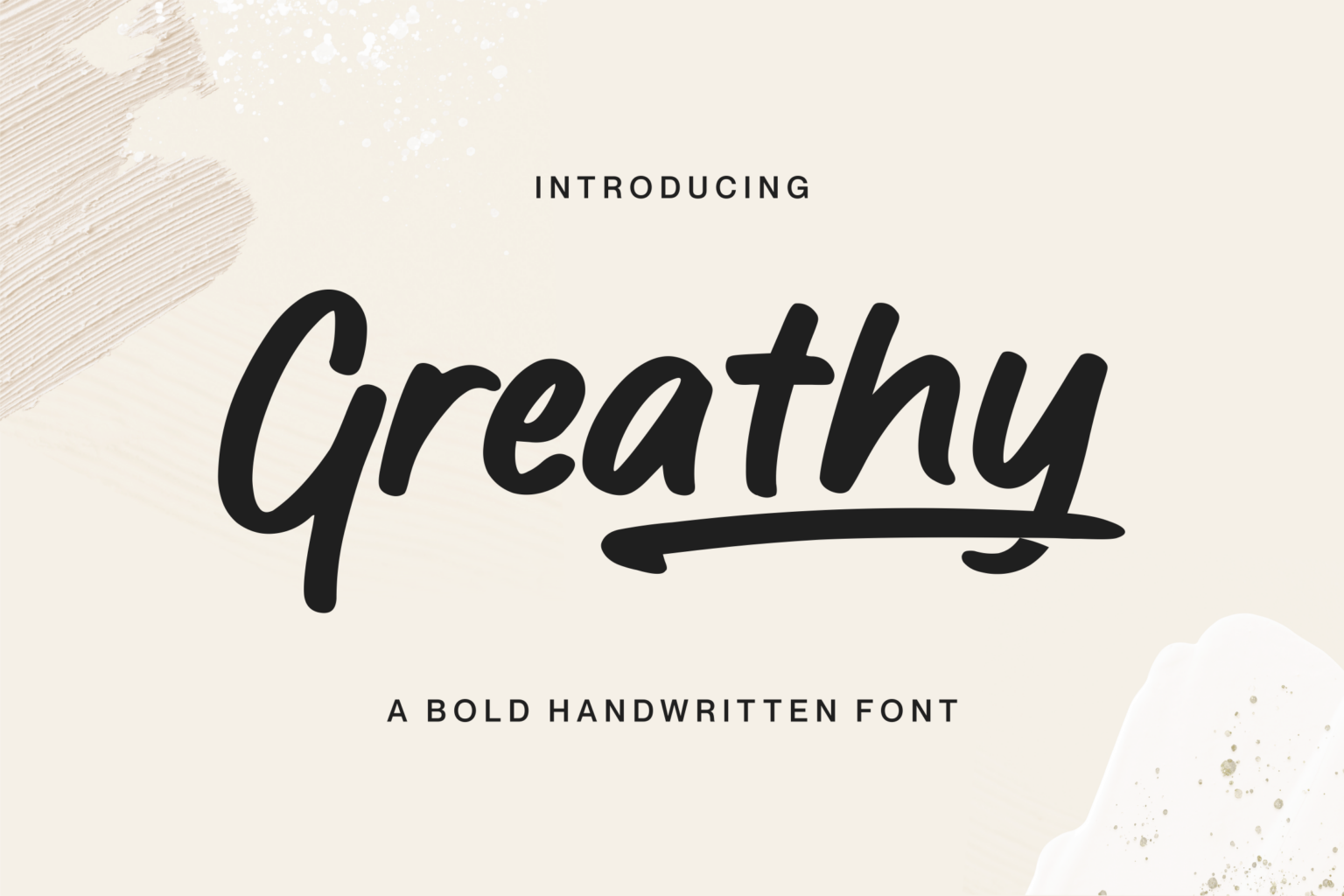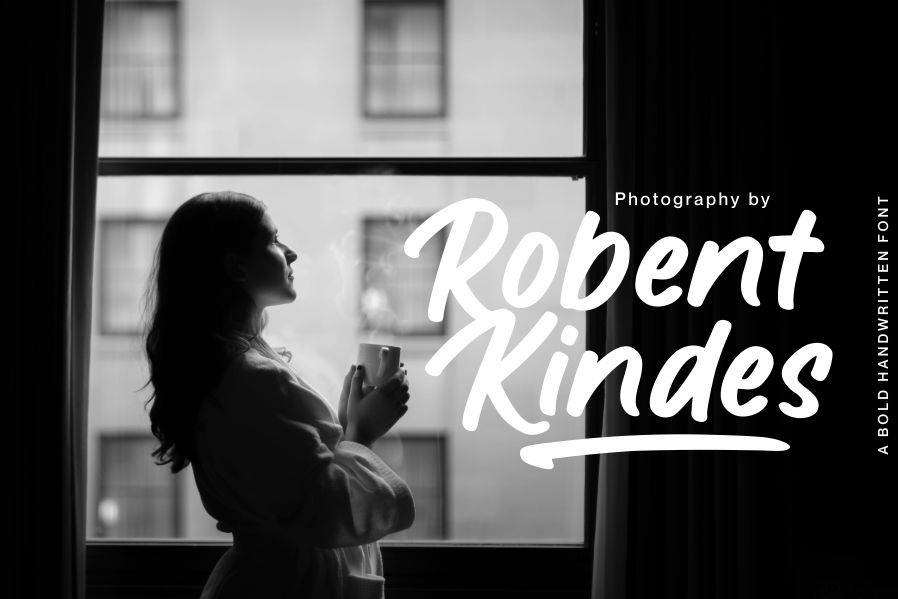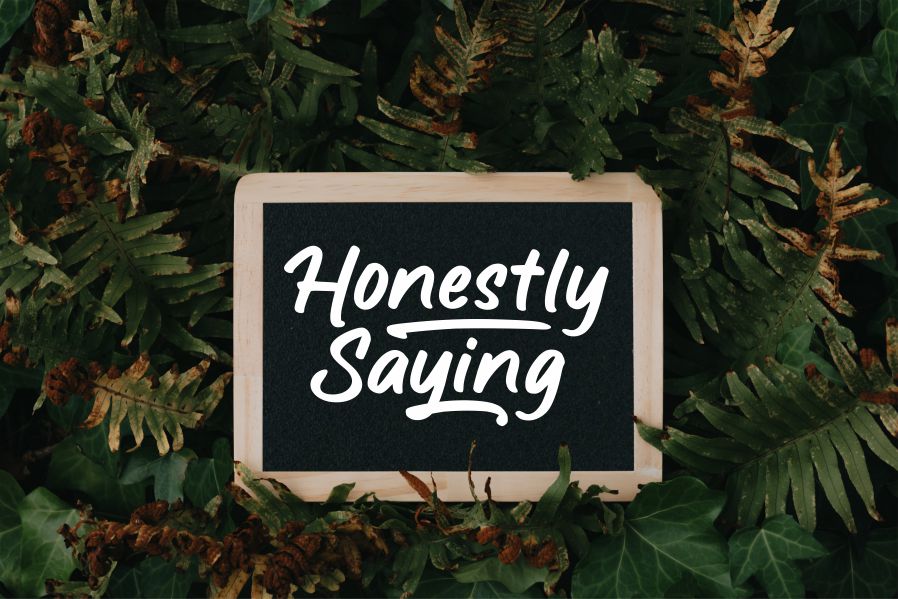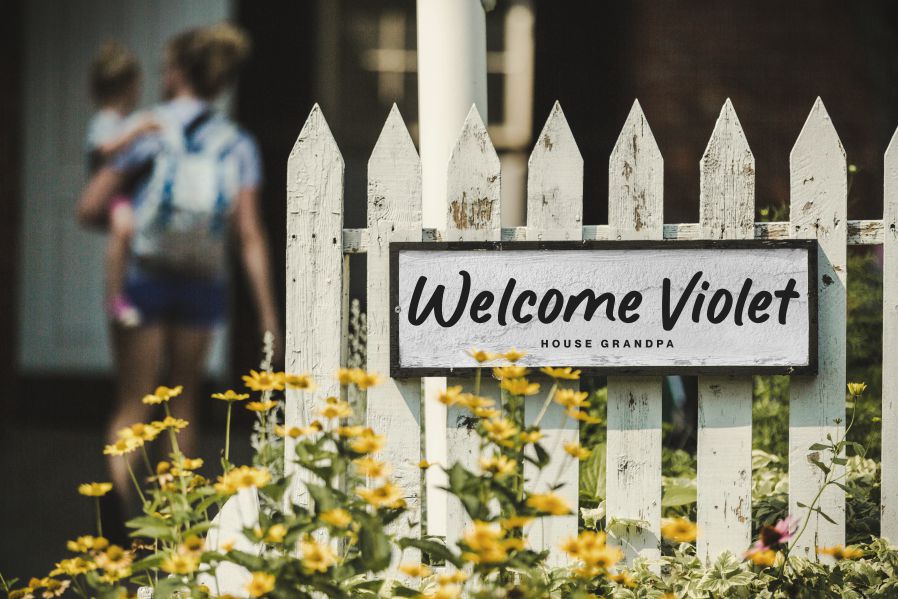
Greathy Font
Greathy Script Font
It’s an exquisite handwritten font, masterfully designed to become a true favorite. It maintains its classy calligraphic influences while feeling contemporary and fresh. Greathy is PUA encoded which means you can access all of the amazing glyphs and ligatures with ease!